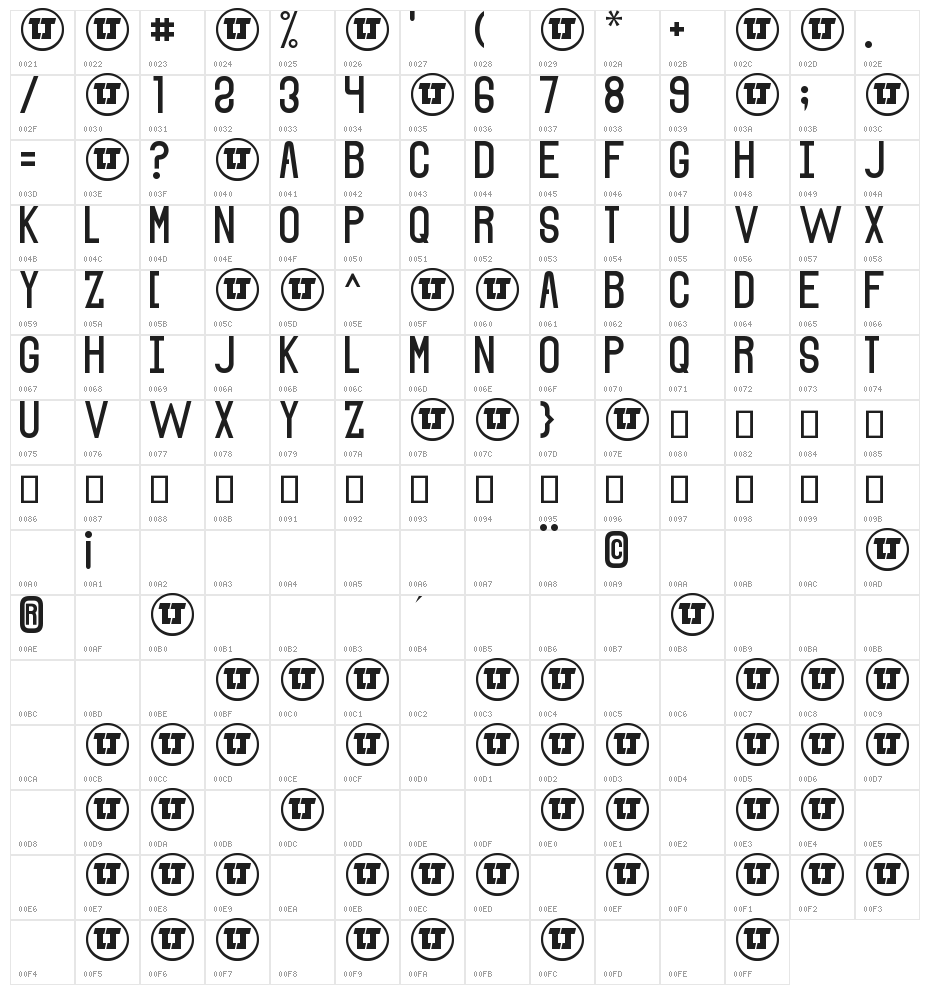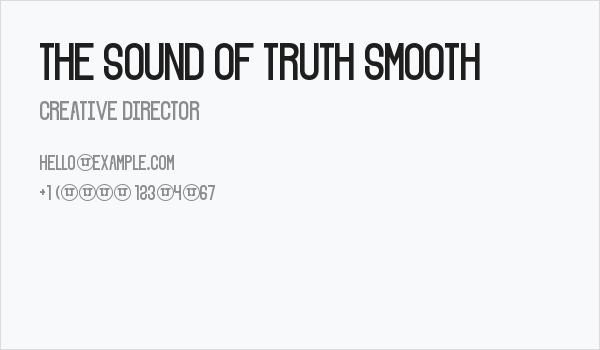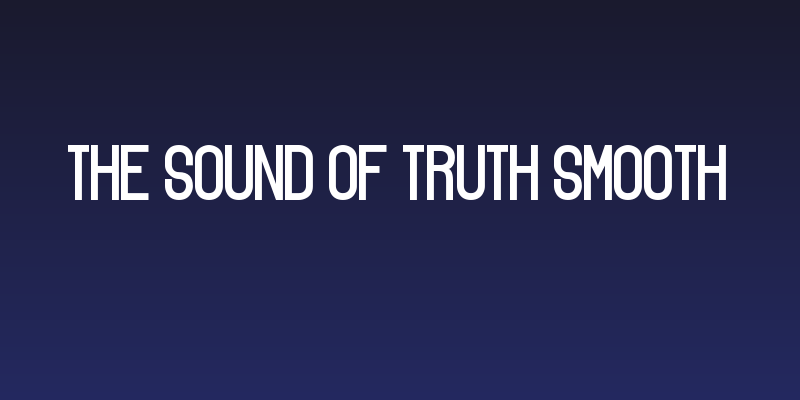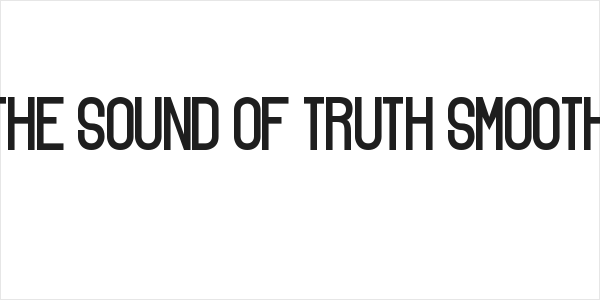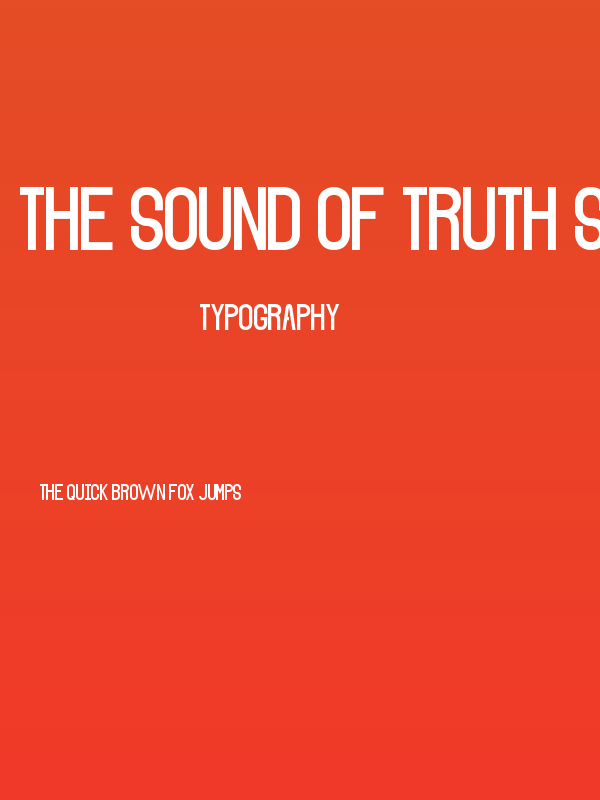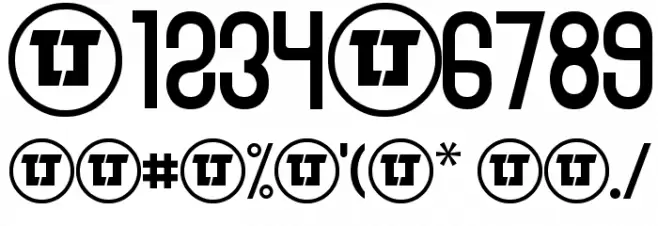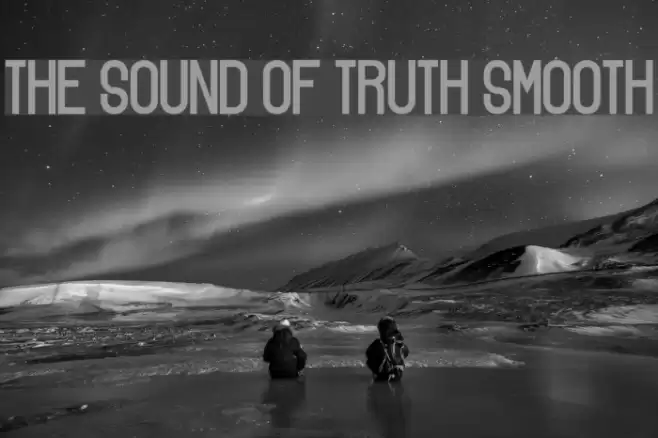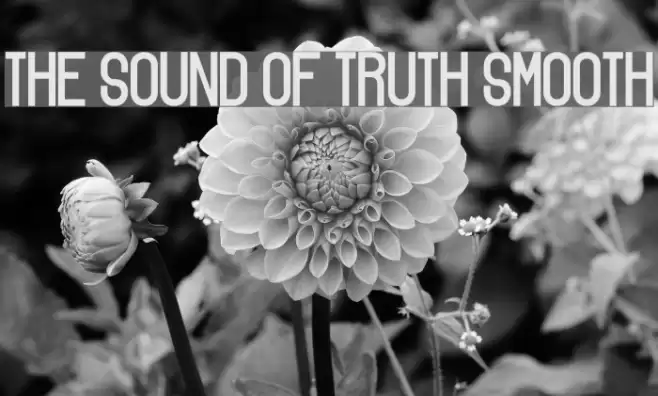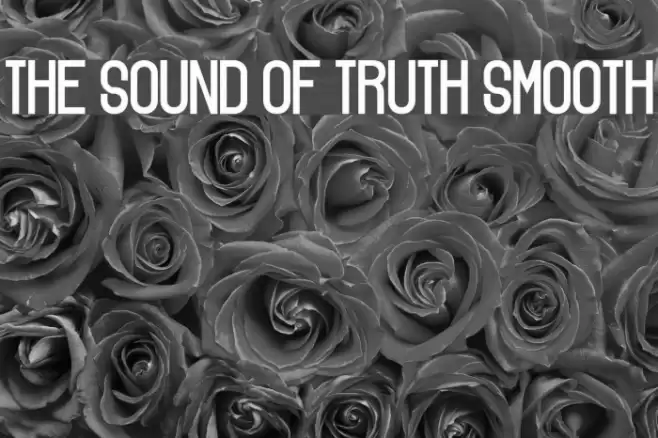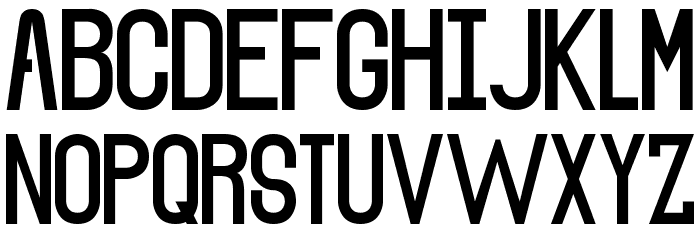
The Sound of Truth smooth Font
The Sound of Truth smooth Description
This font features bold, geometric letterforms with a strong presence. The uppercase letters are uniform in height, creating a cohesive and structured appearance. The characters are designed with a modern aesthetic, featuring clean lines and a consistent stroke width. The numerals and special characters maintain the same bold style, ensuring readability and impact. The overall design is suitable for making statements and capturing attention, with a focus on clarity and simplicity.